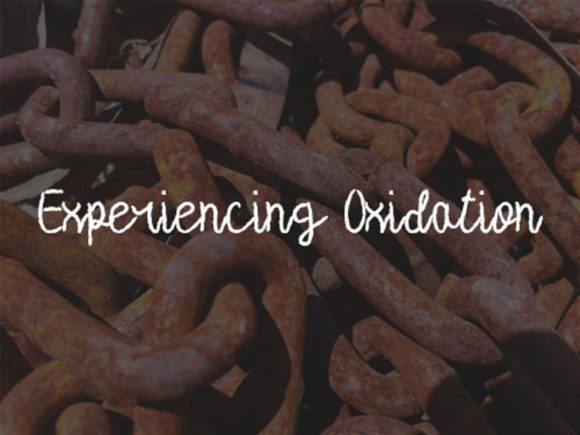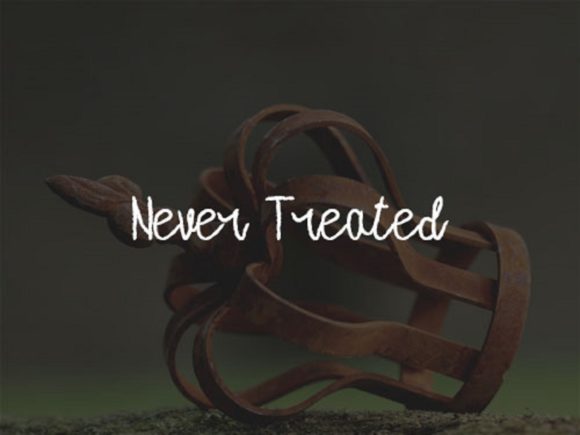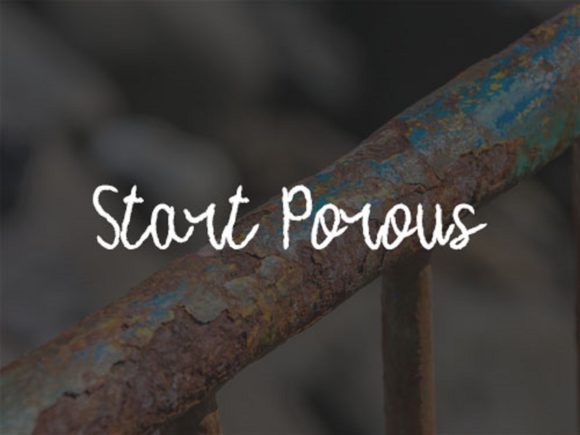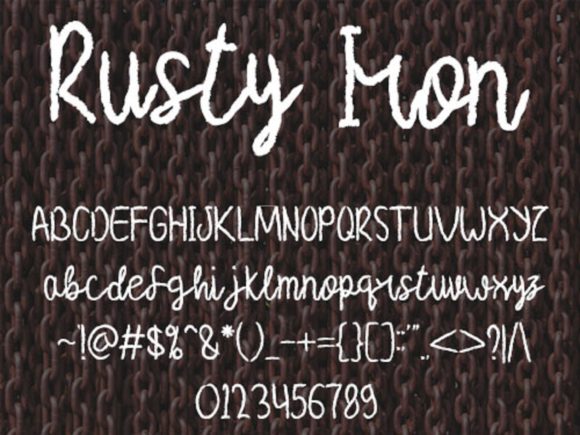
Introduction to Rusty Iron Font
Rusty Iron is a cool, crayon brushed handwritten font, that can be used for all chalkboard quotes or teaching material.
Its authentic look and feel will add a personal and realistic feel to your designs .
Key Features of Rusty Iron Font
Why Choose Rusty Iron Font?
Rusty Iron Font offers exceptional quality and versatility, making it a valuable addition to your design toolkit. Whether you’re creating for personal projects or commercial use, Rusty Iron Font delivers professional results.